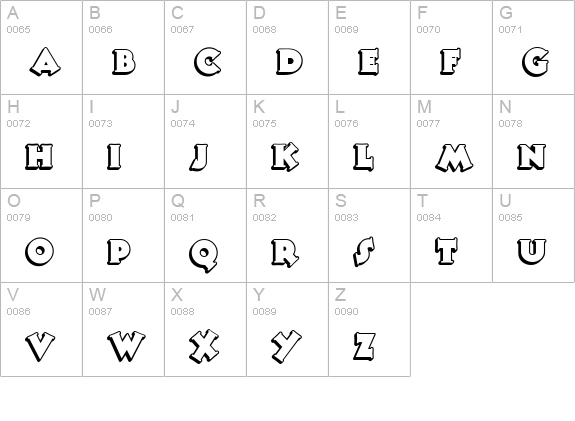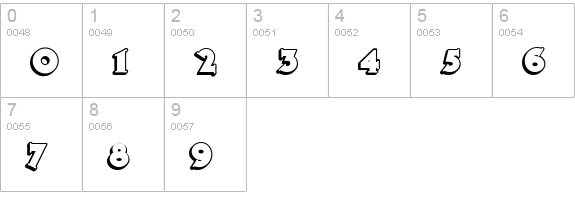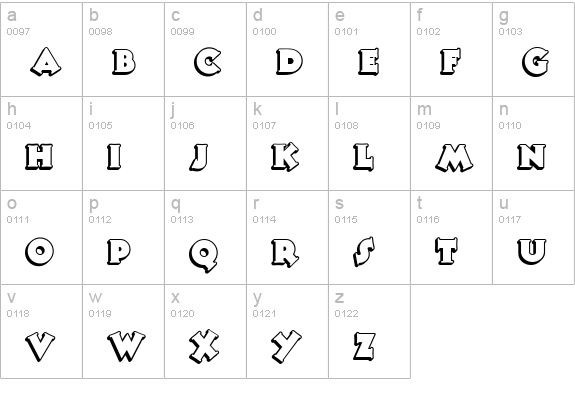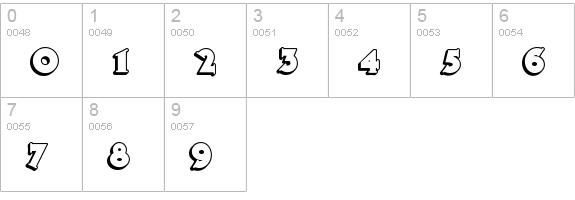
Tooney Noodle NF Font Details
Tooney Noodle NF is a whimsical and playful font that adds a touch of fun and creativity to any project. With its unique design and quirky charm, this font is perfect for adding a lighthearted and cheerful vibe to your designs. Whether you're creating posters, invitations, or social media graphics, Tooney Noodle NF is sure to make your text stand out. What's even better is that this font is available for free download at FontsMarket.com. Yes, you read that right - you can get your hands on this delightful font without spending a dime. So go ahead and unleash your creativity with Tooney Noodle NF, and let your imagination run wild!